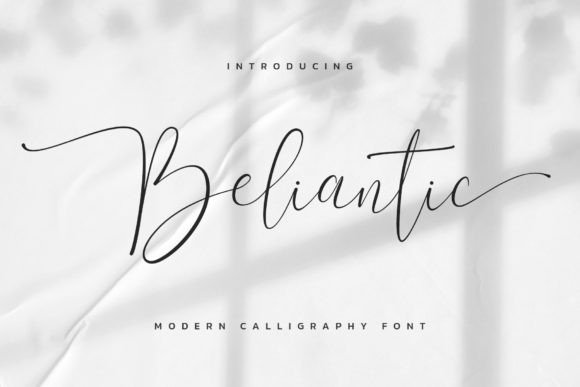
Introducing Beliantic Font, your perfect choice for a stunning and unforgettable wedding welcome sign! Created by the talented Fonday Design Studio, this script font embodies beauty and elegance like no other. Its captivating concept will leave a lasting impression on anyone who lays eyes on it.
With its classy, unique, and modern look, Beliantic Font is not just limited to wedding welcome signs. It is a versatile typeface that can be used for various purposes, making it the ultimate tool for your creative projects. Imagine the impact it will have on your logos, branding, invitations, stationery, and even wedding designs.
Every detail of Beliantic Font has been meticulously crafted to ensure a flawless and professional finish. The glyphs and swashes have been PUA encoded, allowing you to effortlessly access and incorporate them into your designs. This means you have endless possibilities to create stunning compositions that will wow your audience.
Let your imagination run wild with Beliantic Font! Its exquisite curves and graceful strokes will infuse your designs with a touch of sophistication and charm. Whether you're designing a heartfelt wedding invitation or a captivating social media post, this font will elevate your creations to new heights.
But don't just take our word for it. Experience the magic of Beliantic Font yourself and witness the transformative power it holds. Feel the emotions it evokes as you showcase your creativity and express your unique style. Let it be the secret ingredient that sets your designs apart and leaves a lasting impression on your audience.